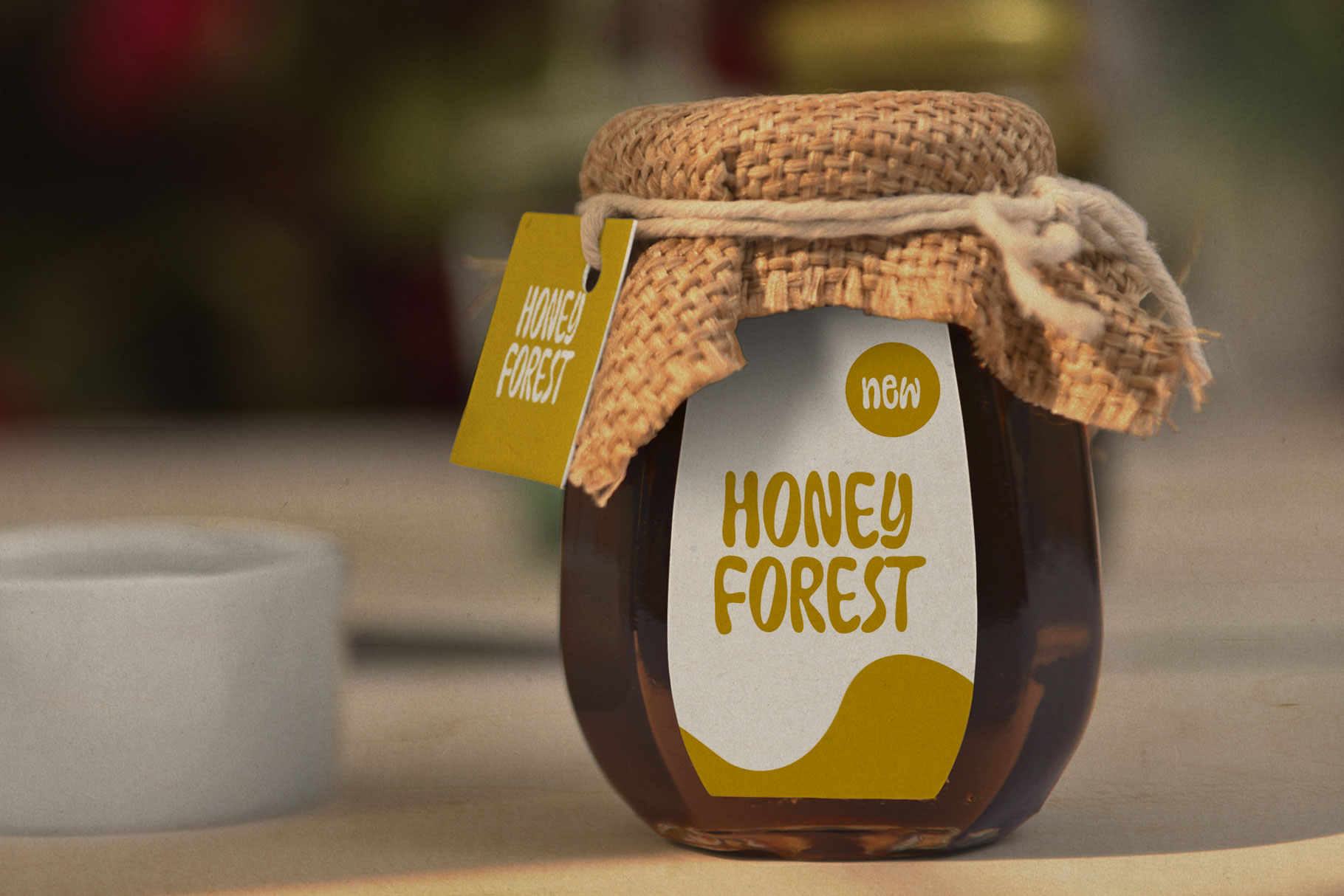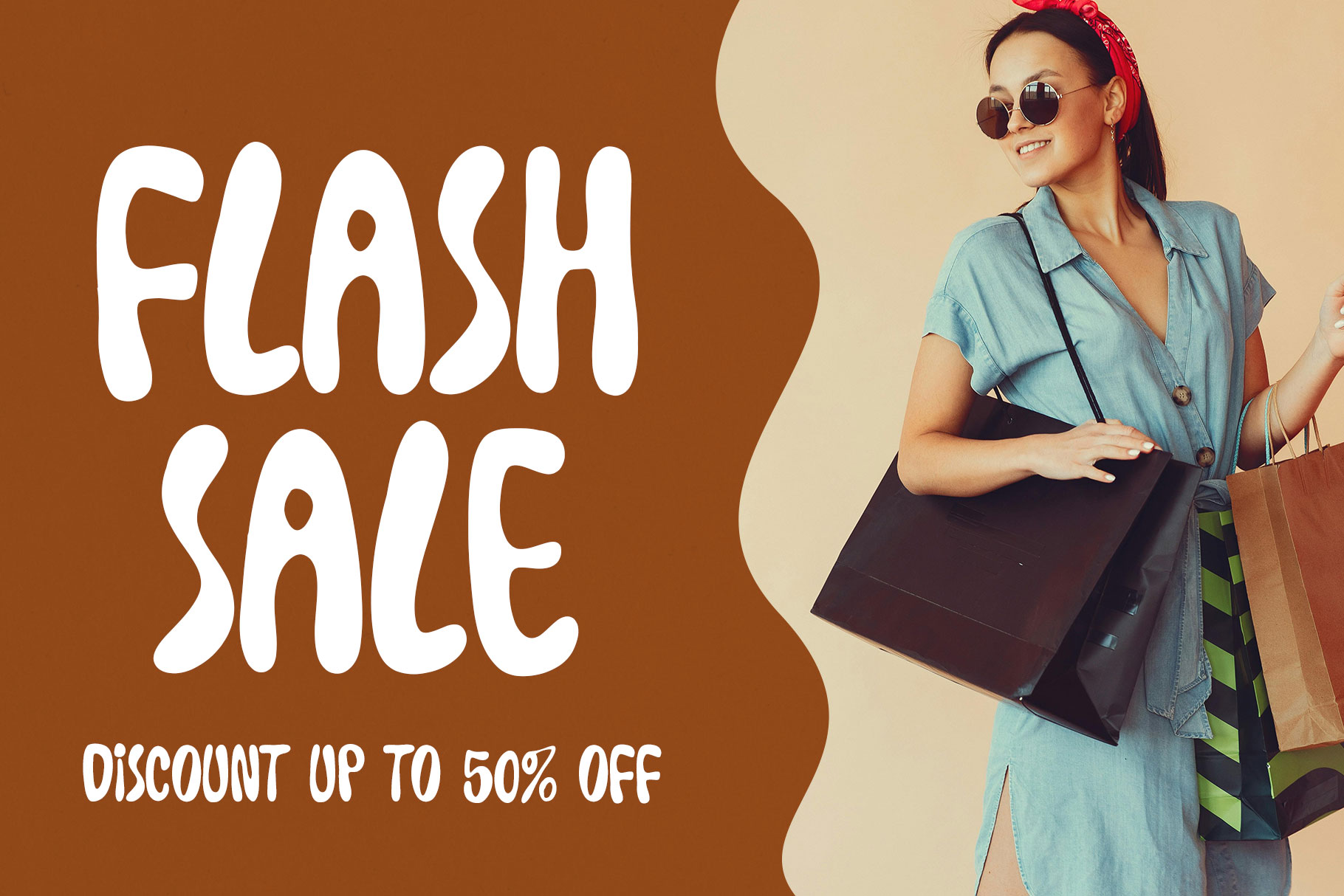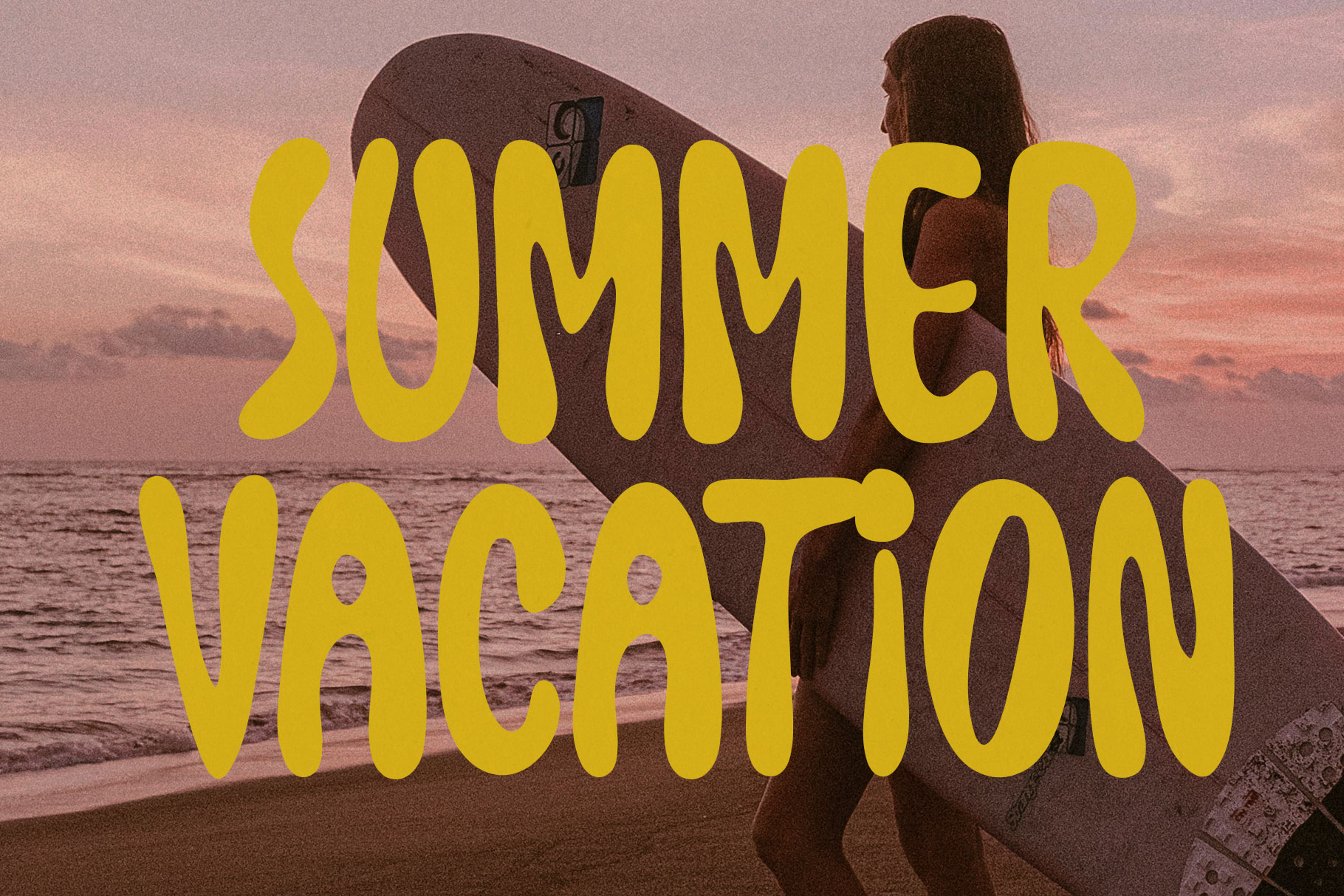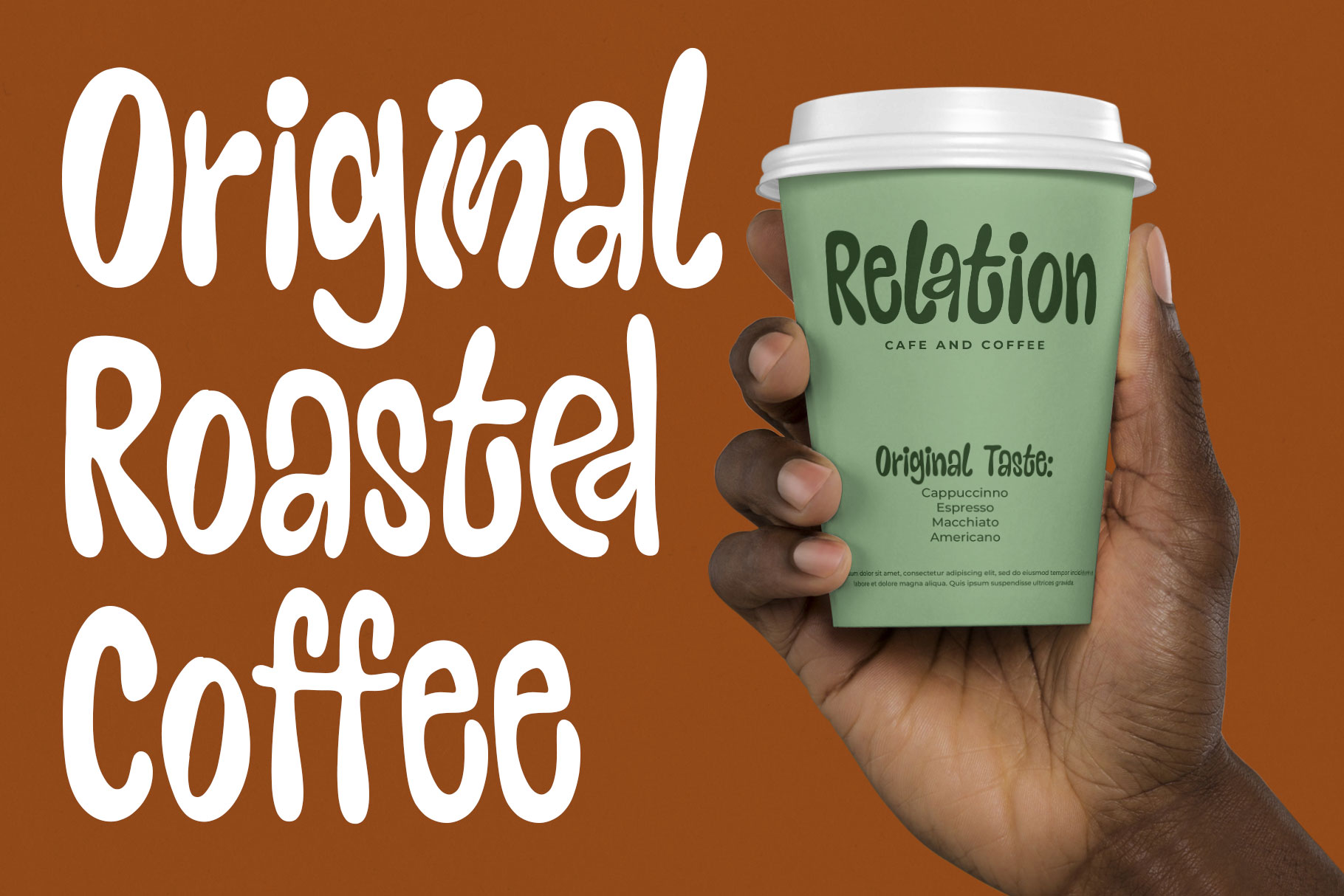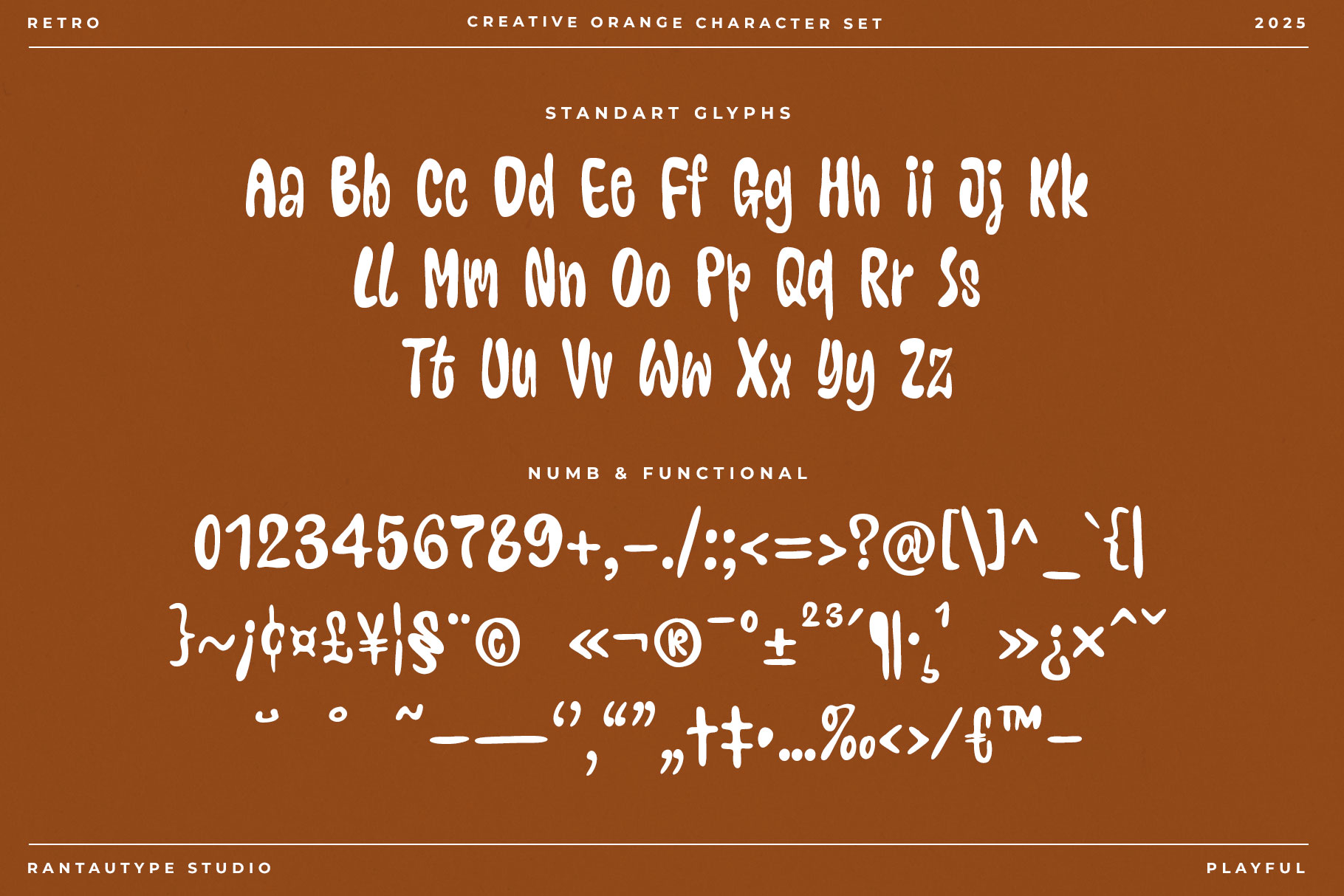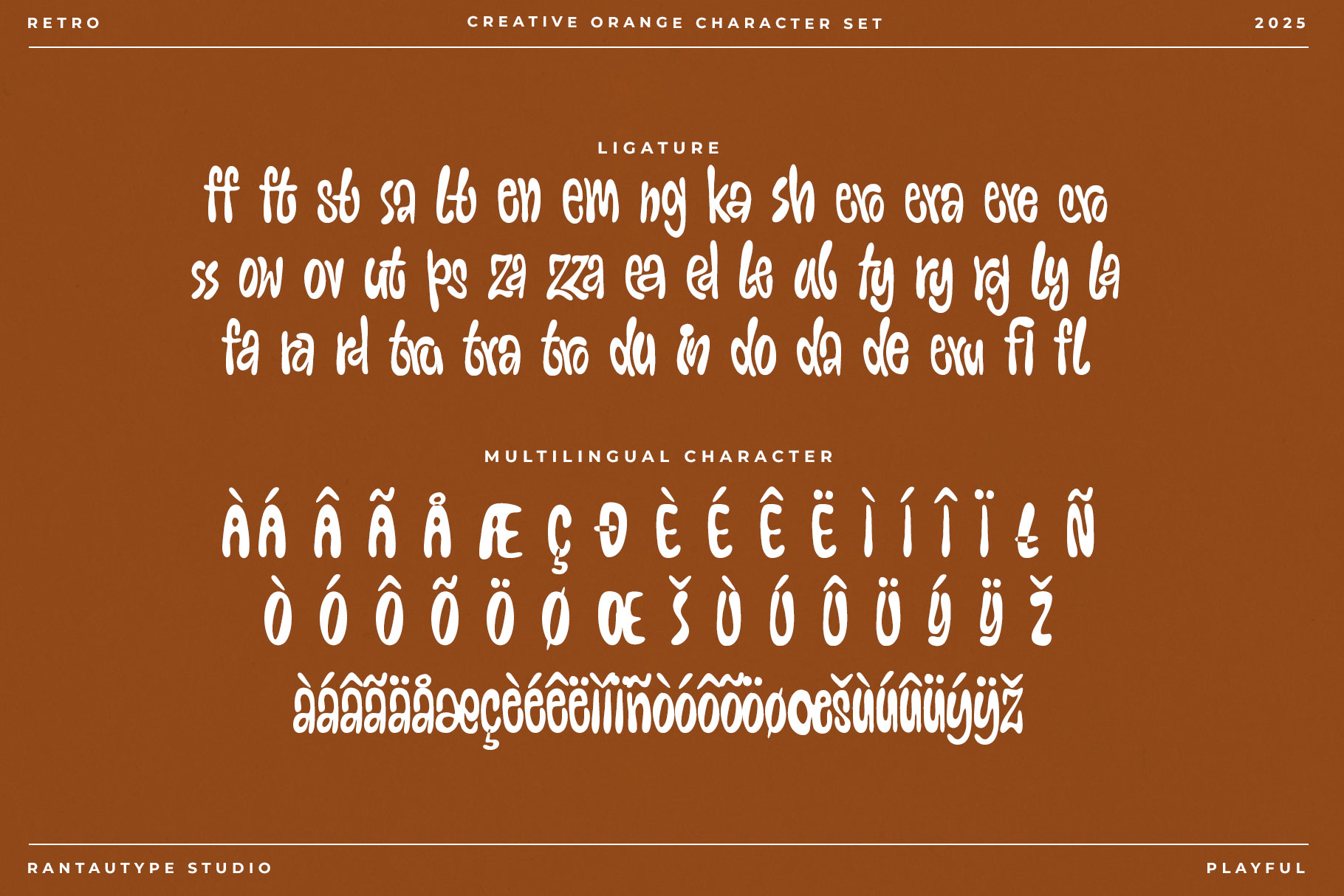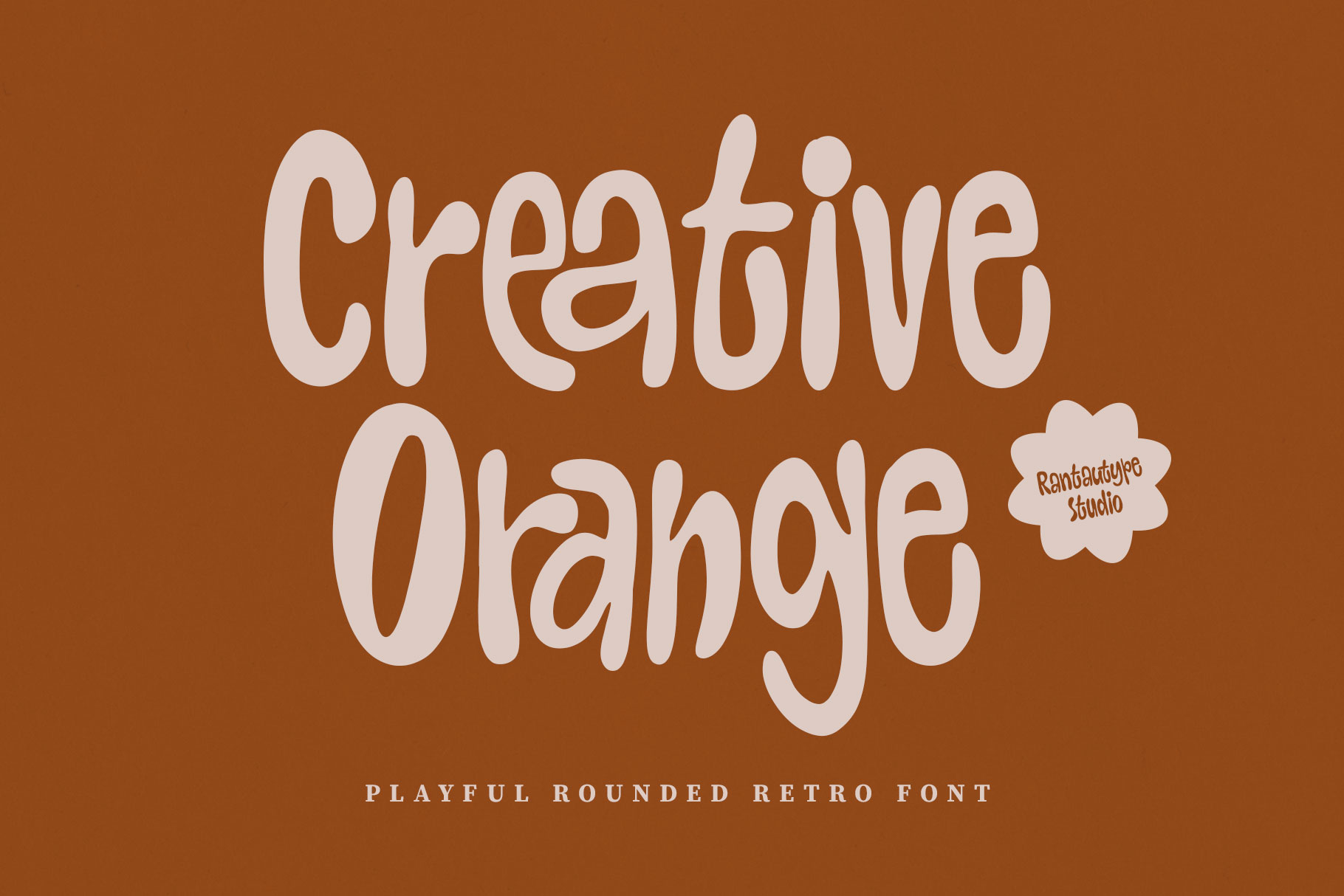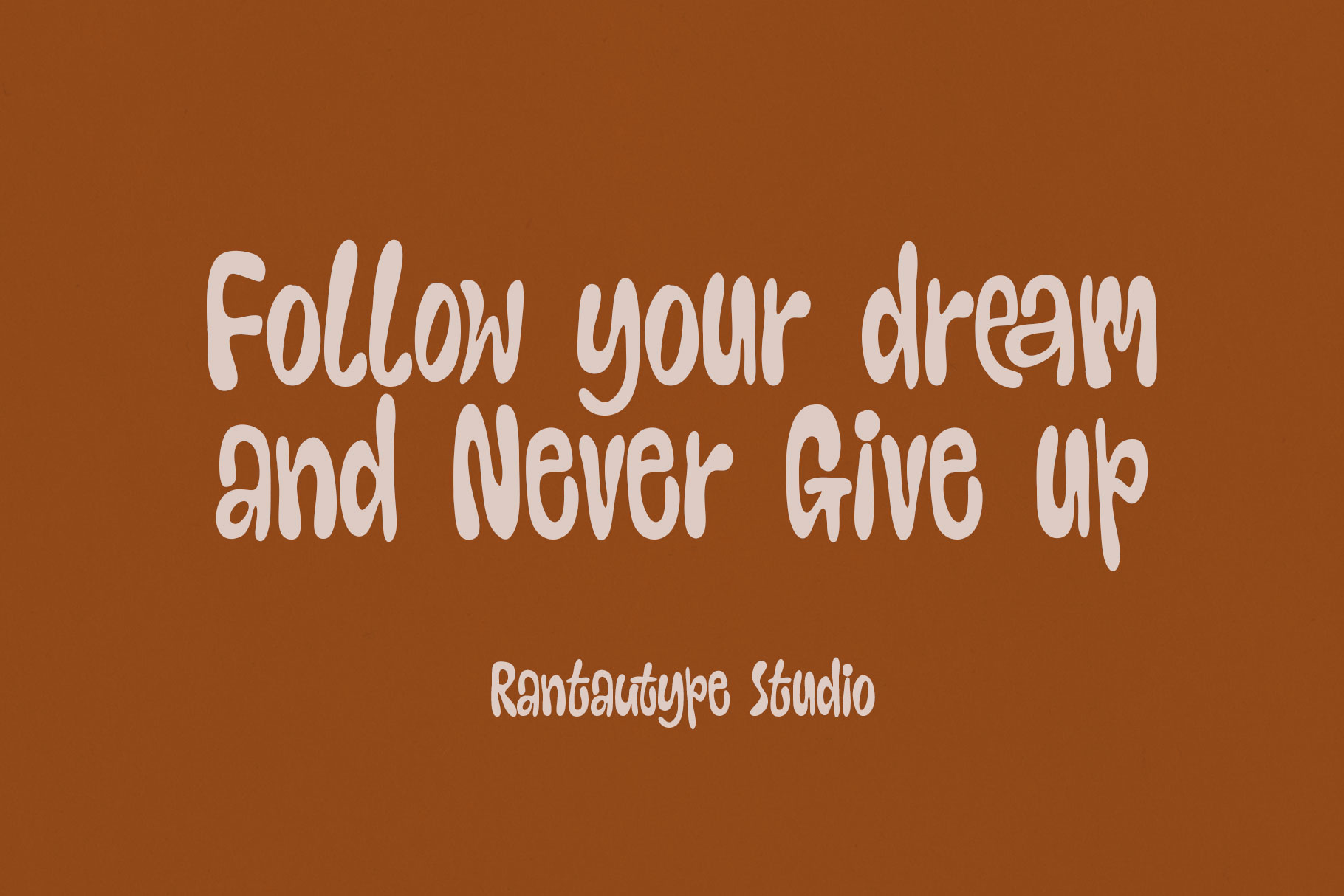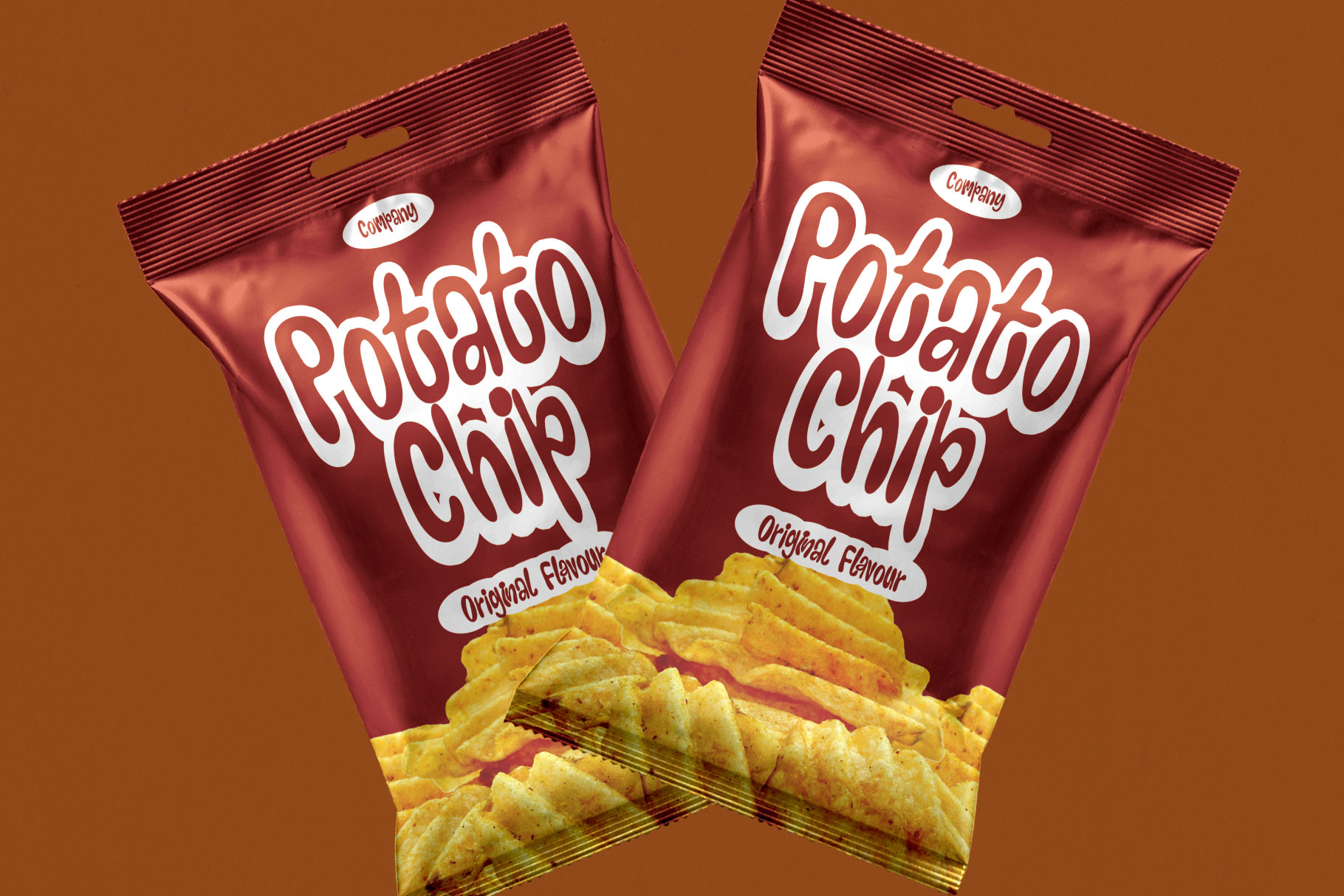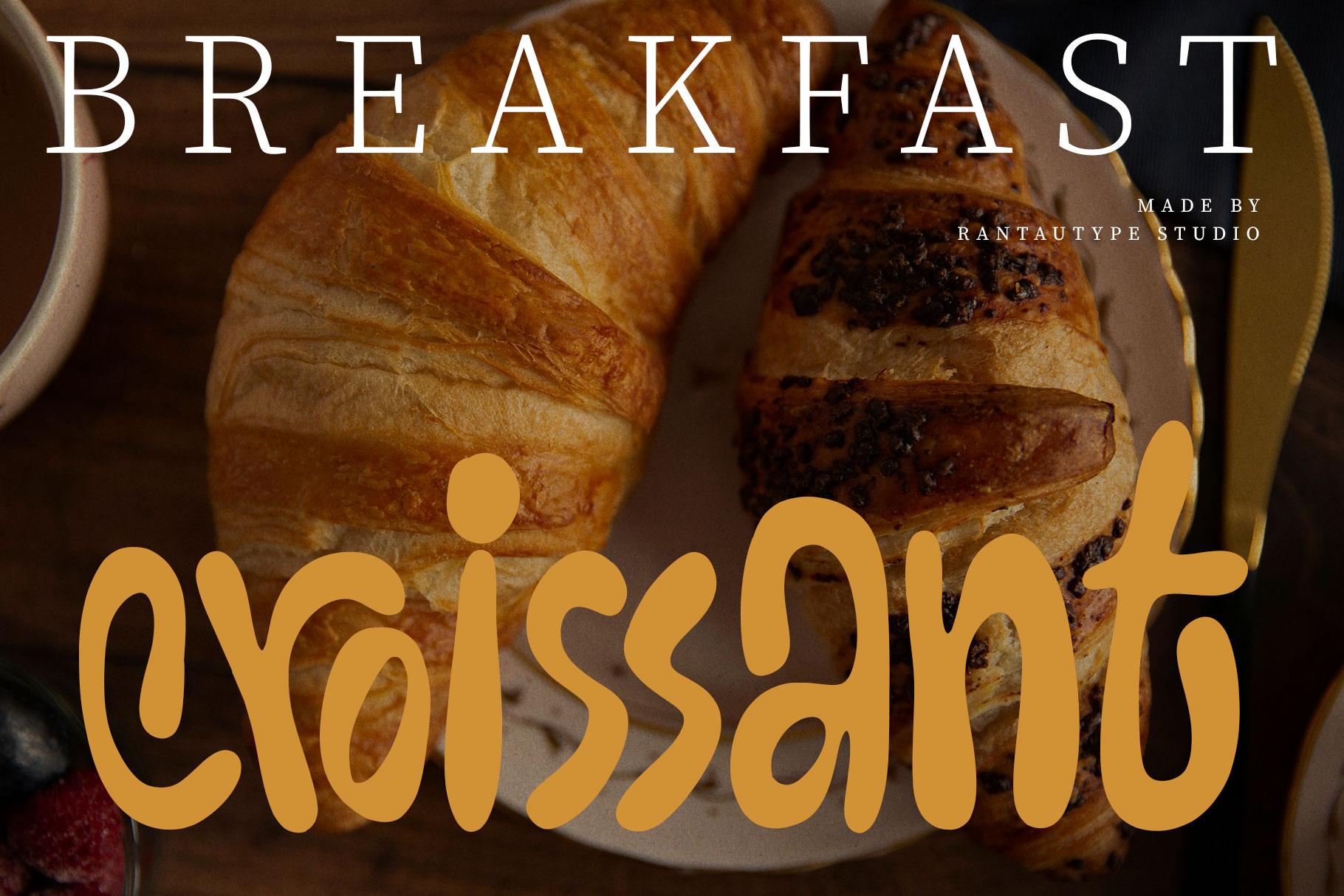
Creative Orange Playful Retro Font
Creative Orange is delightful blend of classic charm and modern fun. Creative orange bring friendly of traditional serif fonts while adding a soft, rounded twist that brings pop and funky to every letter.
Creative Orange is a perfectly choice for any creative endeavor, creating, modern, lifestyle design such as logotype, title, cover, branding, invitations, wedding designs, display and magazine, social media posts, advertisements, printed quotes, product packaging, corporate brand, product designs, labels, photography, watermarks, special events and any other project with playful touch.